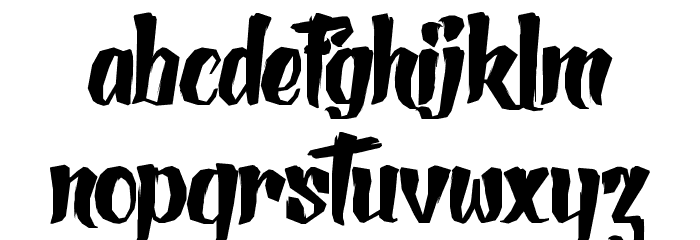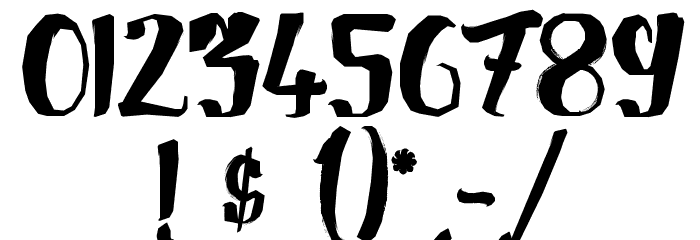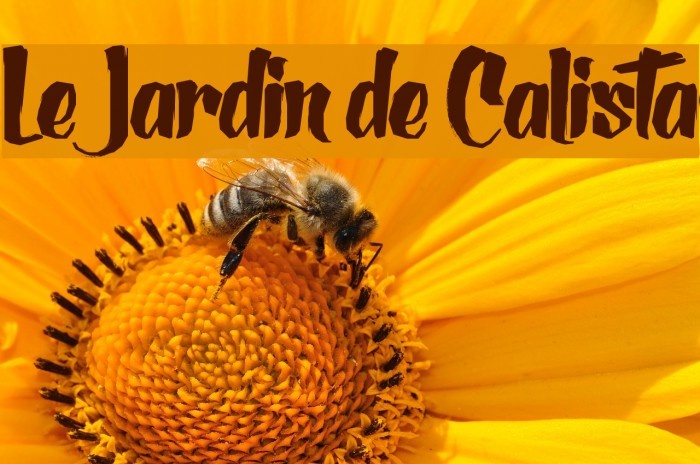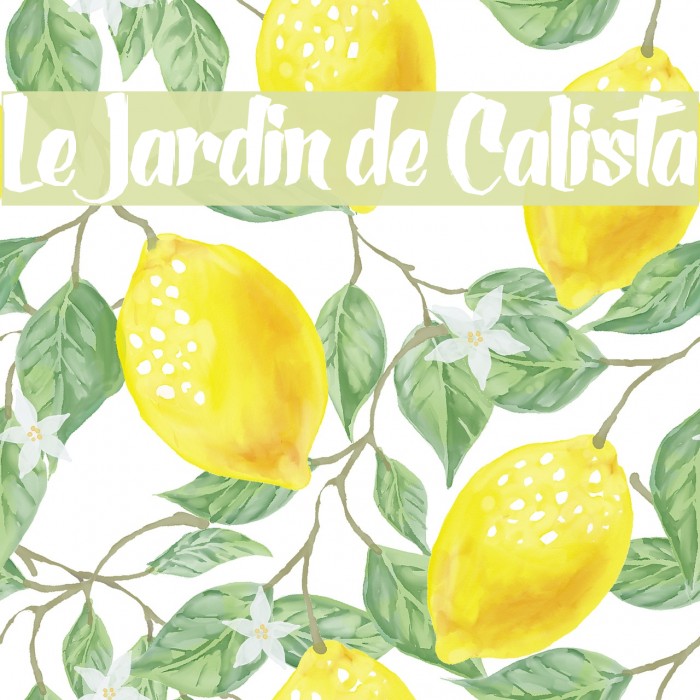
Le Jardin de Calista Font
This font features a bold and expressive style with a strong blackletter influence. The characters are designed with sharp, angular lines and a dramatic flair, giving it a gothic and medieval appearance. The uppercase letters are particularly striking, with intricate details and a sense of grandeur. The lowercase letters maintain the same boldness, offering a cohesive look across the typeface. Numbers and special characters are equally bold, ensuring consistency throughout. This font is ideal for projects that require a historical or dramatic touch, such as event posters, book covers, or themed branding.
A bold, blackletter-inspired font with a dramatic and gothic style.
- Proposed Projects: Ideal for event posters, book covers, themed branding, and historical designs.
- Overall Style: Gothic, Medieval, Dramatic
- Use Case: Headlines, Logos, Decorative text